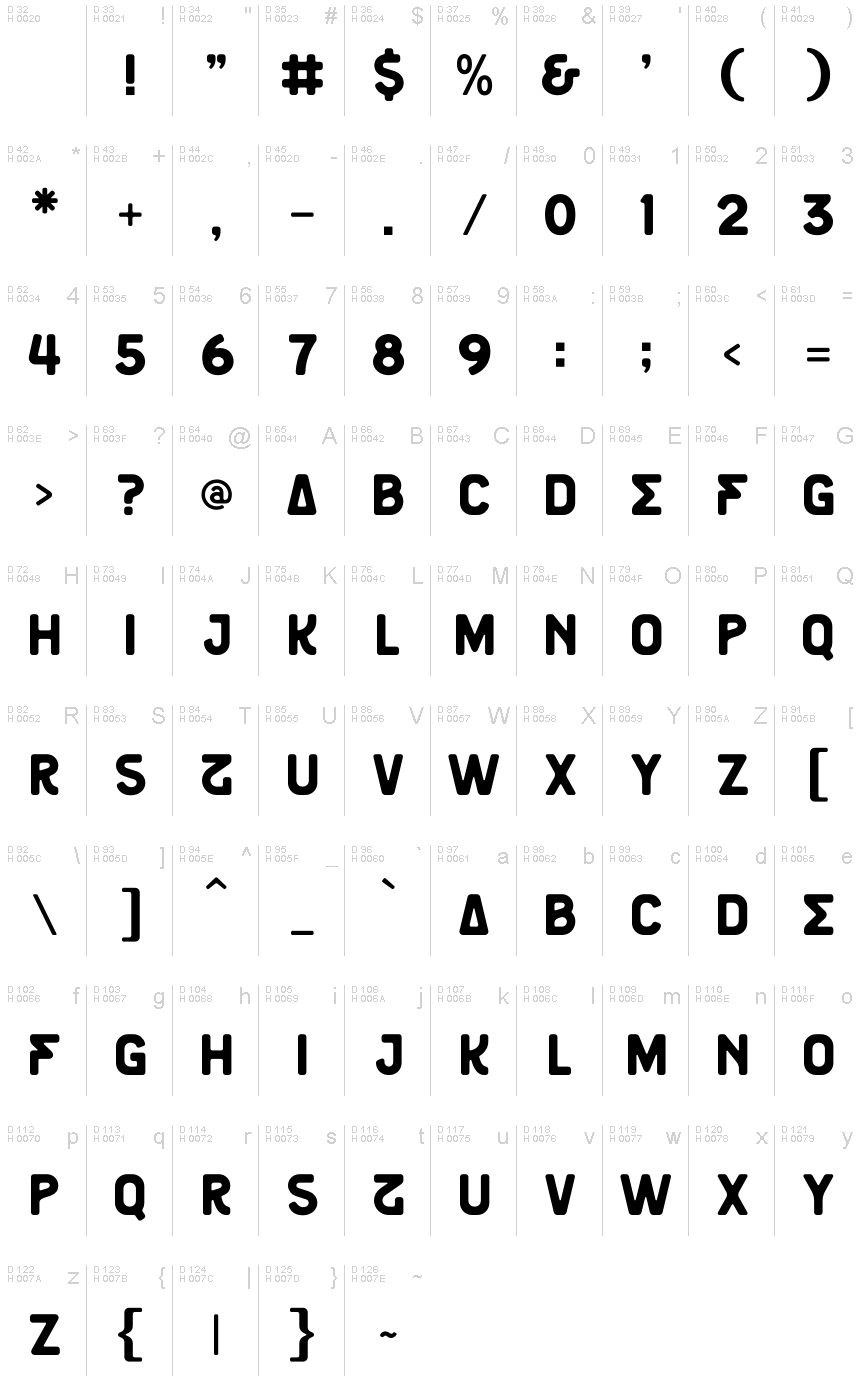
JABREGOR
Jabregor, a bold and captivating display font crafted by Storytype Studio, commands attention with its striking, angular forms. Inspired by the rugged aesthetic of ancient stone carvings, this typeface exudes a sense of primal power and raw, untamed energy. Its robust, substantial letterforms possess a distinct sense of weight and presence, making it an impactful choice for headlines, logos, and branding applications that demand a strong, assertive visual impact.
Jabregor's versatility shines through its ability to seamlessly bridge the divide between modern and vintage design sensibilities. Its bold, distinctive character lends itself well to a wide range of creative projects, from eye-catching poster designs and book covers to bold, attention-grabbing signage and packaging. Storytype Studio's Jabregor is a font that effortlessly captivates and leaves a lasting impression.